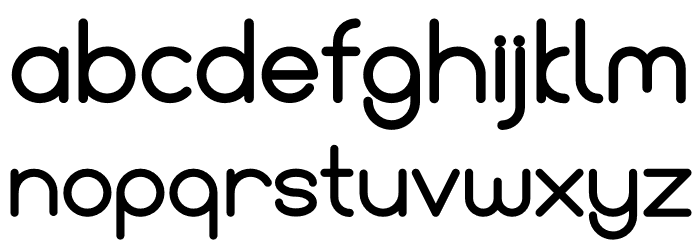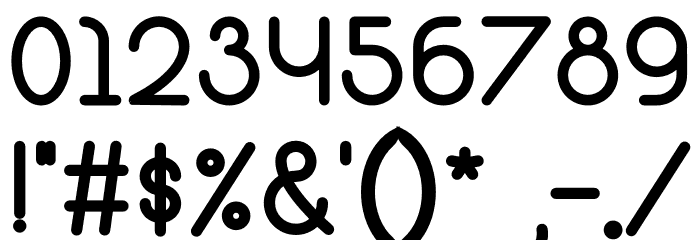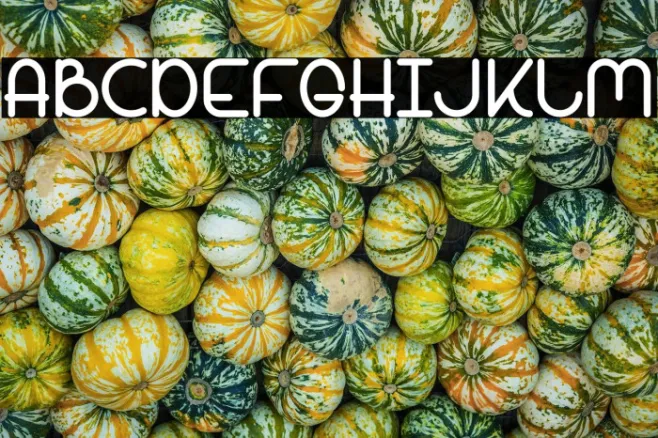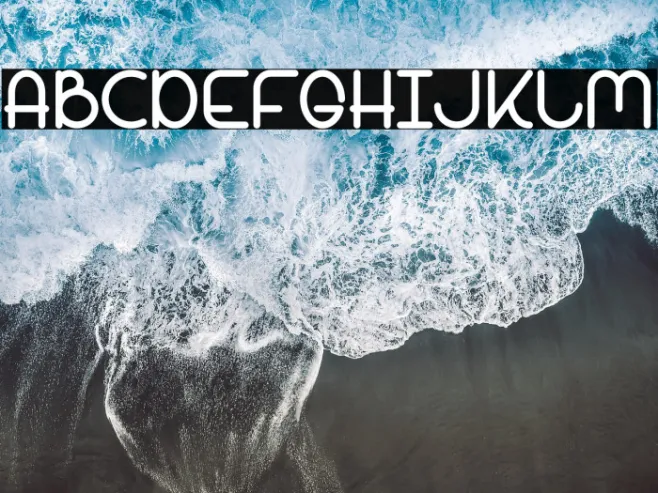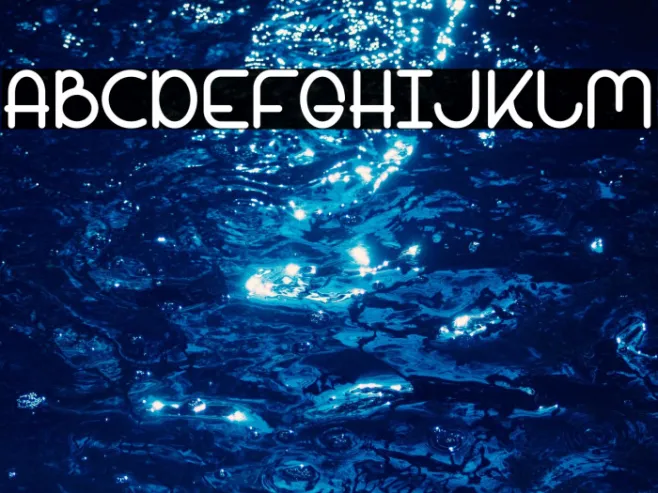
Bandar Bold Font
This font features a playful and rounded design, characterized by its smooth curves and consistent stroke width. The letters are evenly spaced, creating a harmonious and approachable appearance. The uppercase and lowercase letters maintain a uniform style, with rounded terminals and a friendly aesthetic. The numerals are clear and easy to read, matching the overall style of the alphabet. Special characters are well-integrated, maintaining the same rounded and bold characteristics. This font is versatile, suitable for projects that require a modern yet approachable look.
A playful, rounded font with smooth curves and consistent stroke width.
- Proposed Projects: Ideal for children's books, playful branding, casual invitations, and modern web design.
- Category: Sans-Serif
- Use Case: Headlines, Logos, Branding